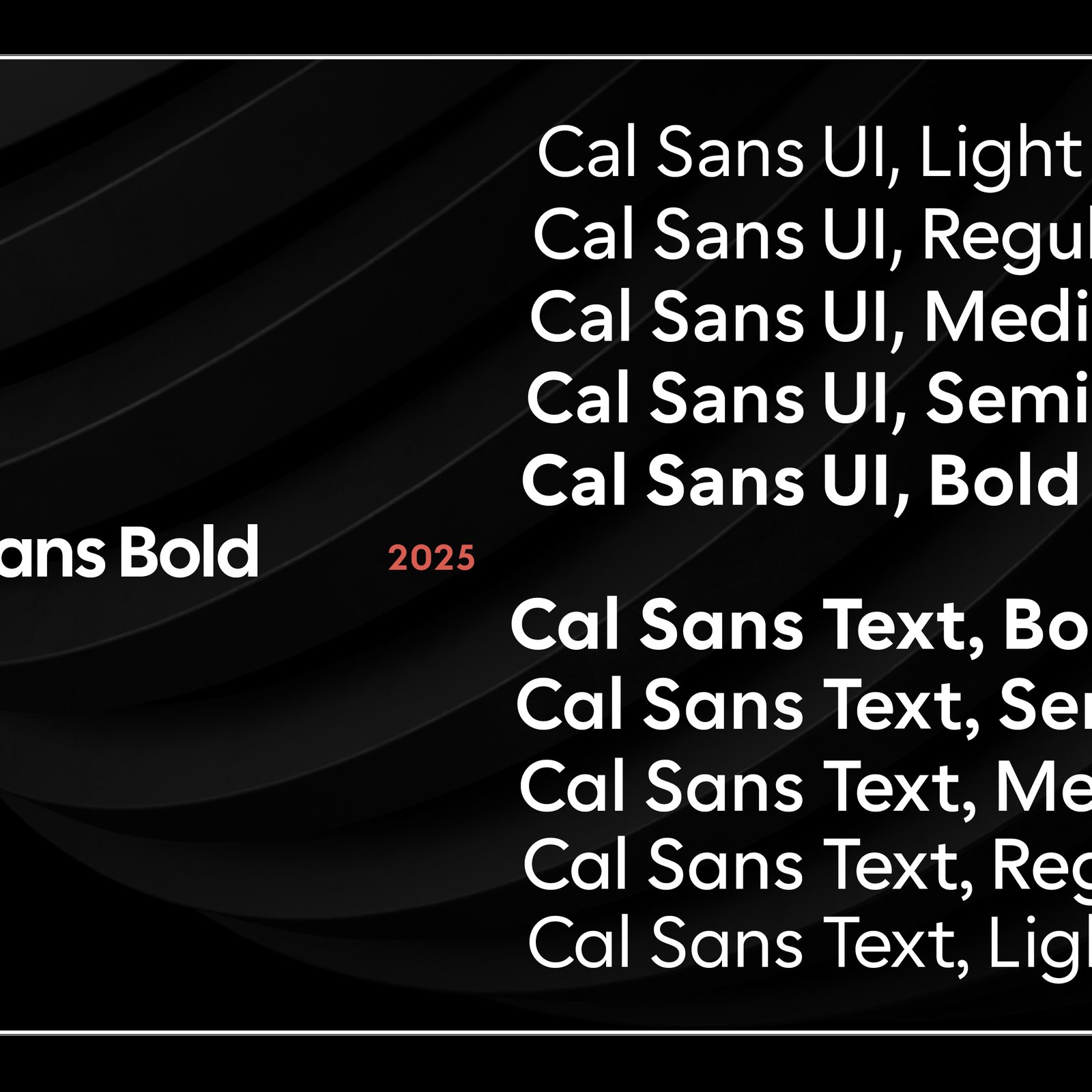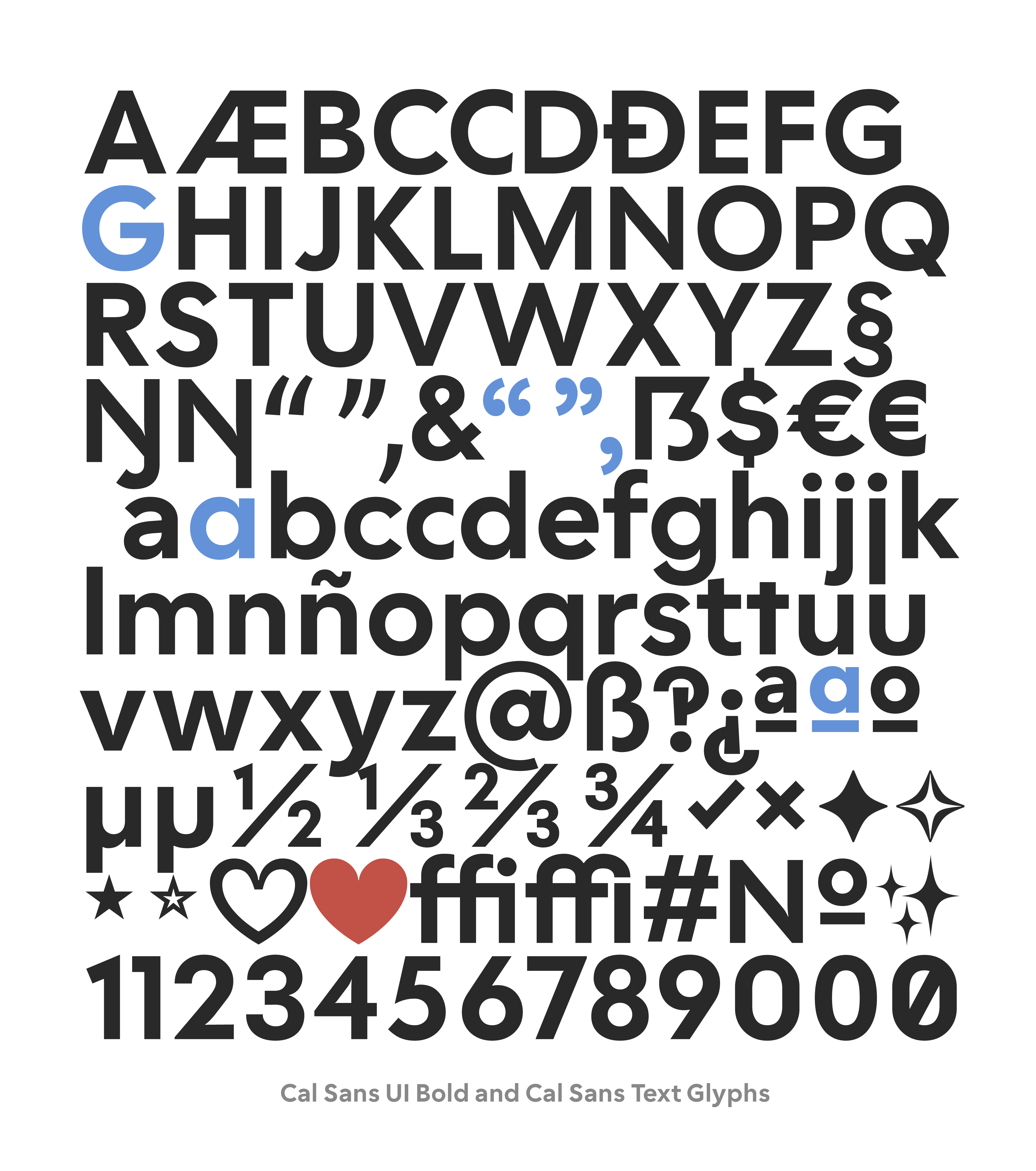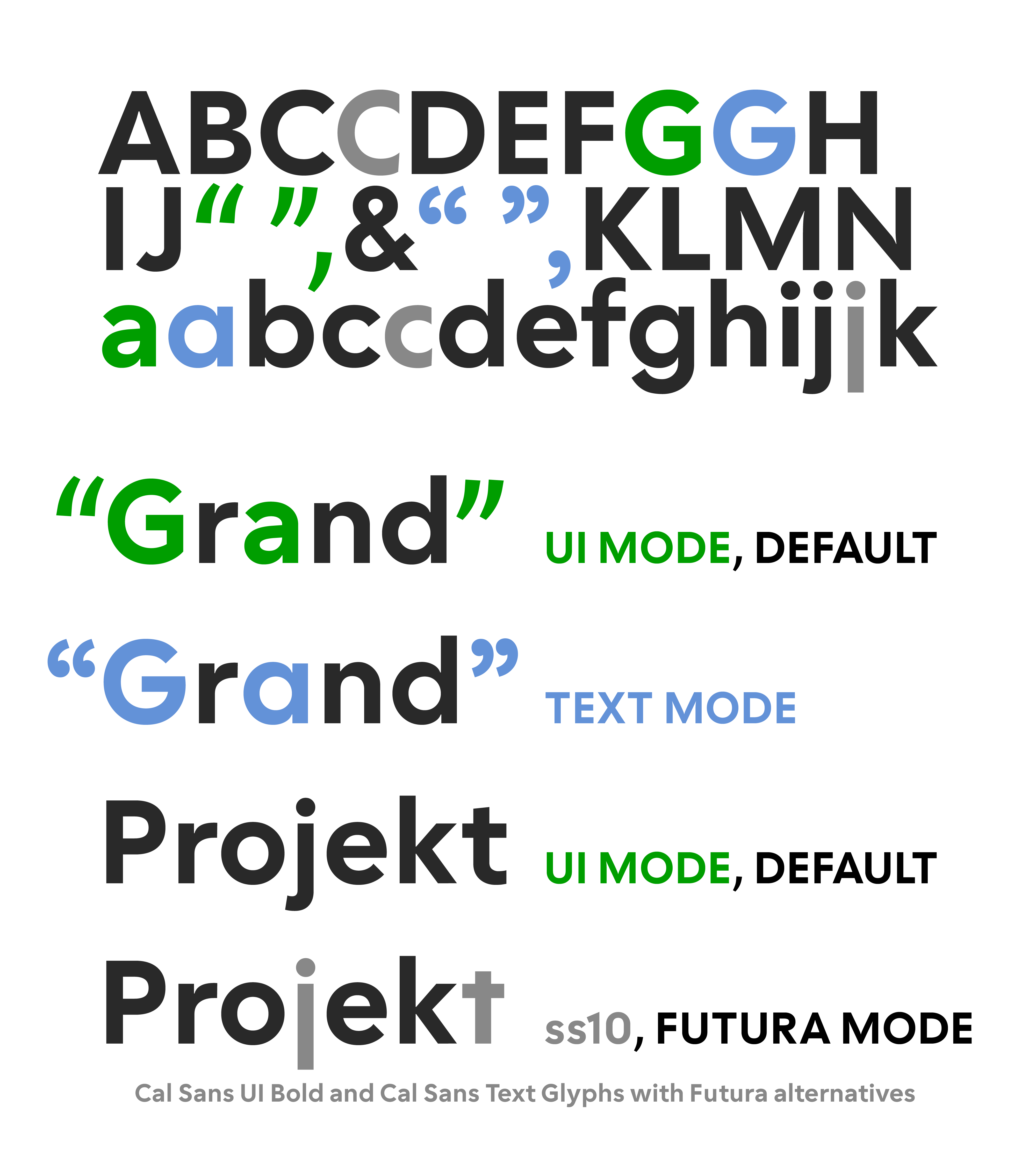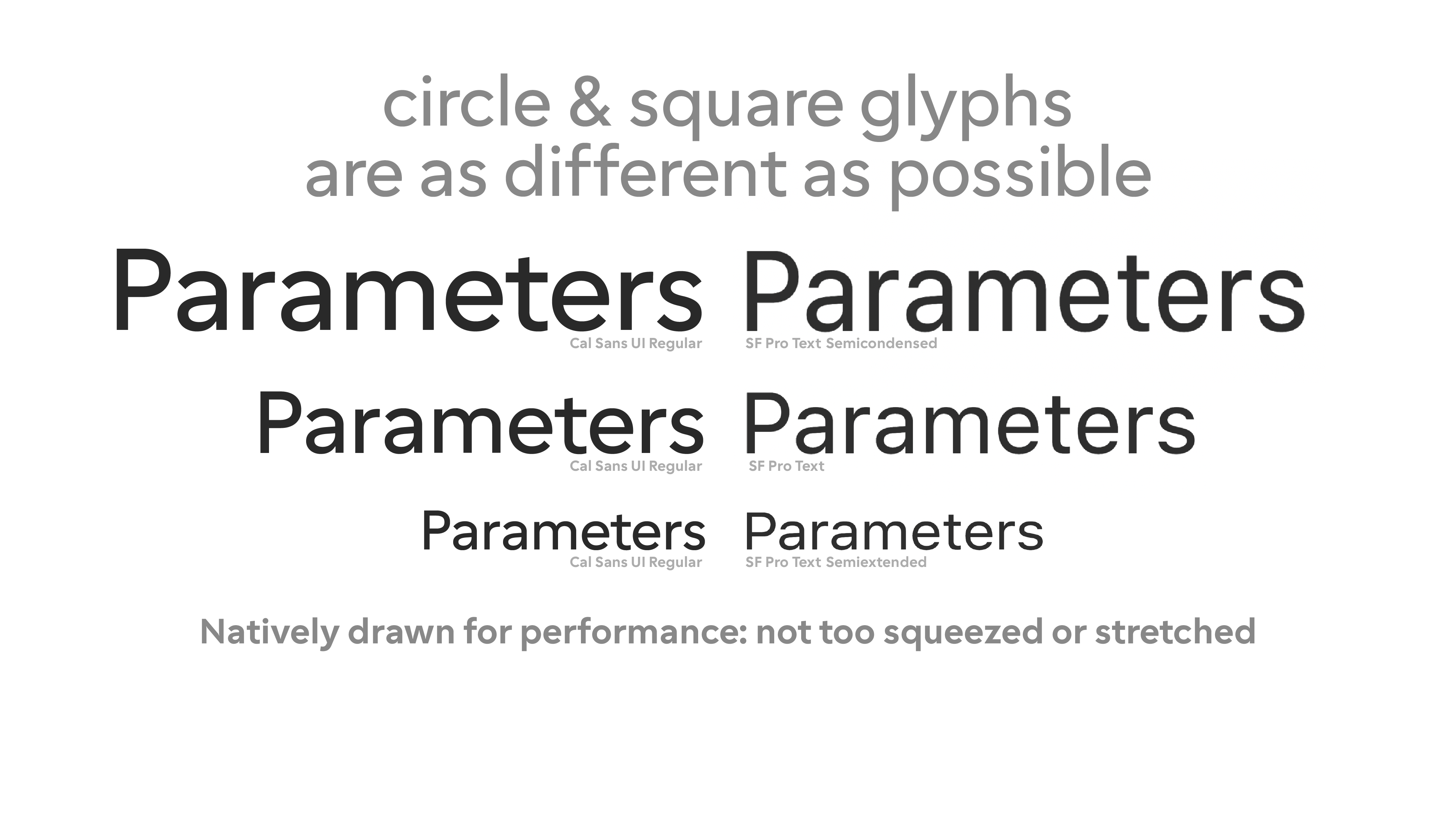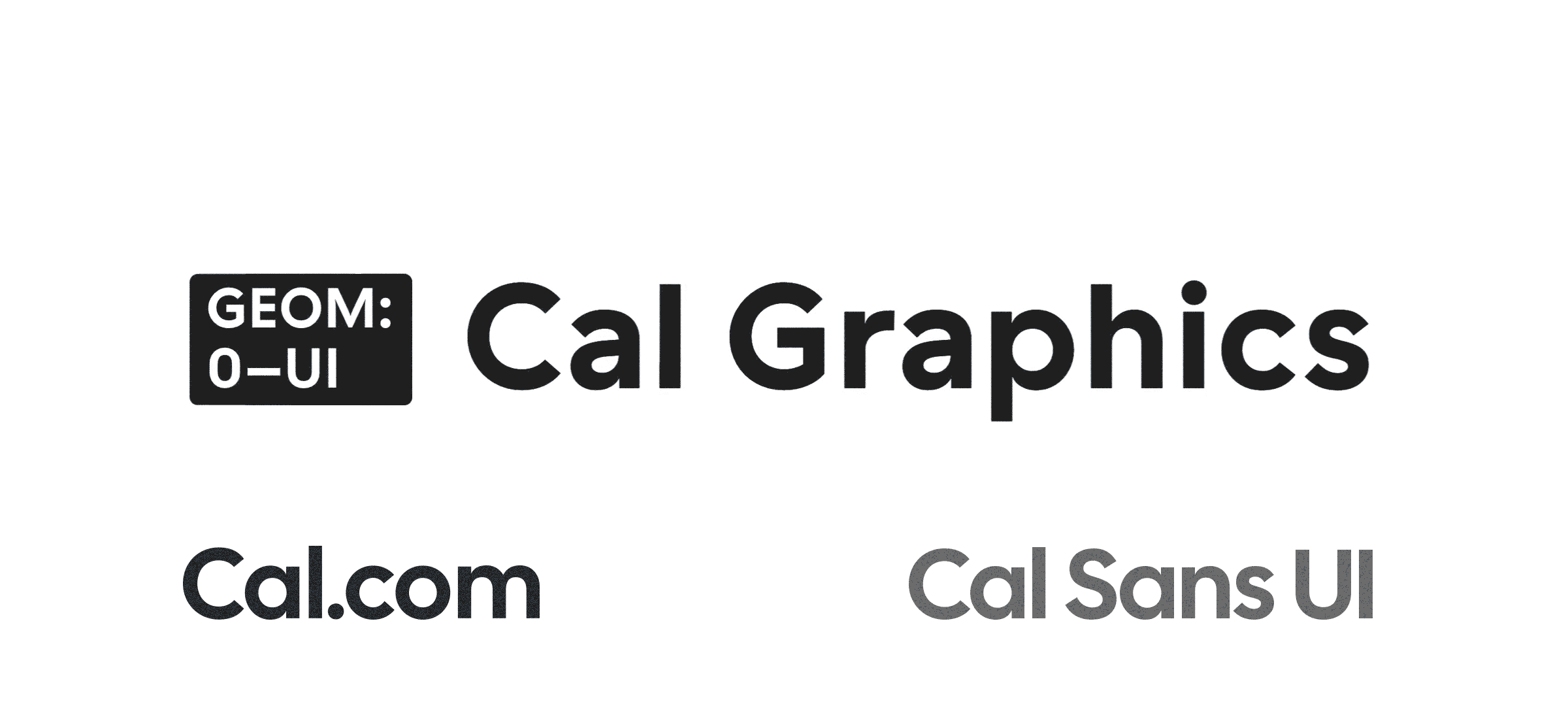
Cal Sans UI Free Font: A Variable Typeface with GEOM Axis
Cal Sans UI free font is a variable typeface by Mark Davis for Cal.com with a GEOM axis that slides between humanist and geometric forms, released under the SIL Open Font License for free personal and commercial use.
Cal.com, the open-source scheduling platform with more than 50,000 GitHub stars, commissioned the type family from WORDMARK, Davis's typographic practice. The result is not a generic UI face. Cal Sans UI ships as three distinct families: Cal Sans UI, Cal Sans UI Text, and Cal Sans UI Geo, each with a weight axis spanning Light to Bold and a custom GEOM axis running from 0 to 100. At GEOM 0, letterforms carry organic, humanist curves. At 100, those same letters resolve into strict geometric proportions. The font slides between both states continuously, giving designers a tool with genuine expressive range.
The family was built for interfaces, optimized for 14–15px rendering on high-density screens. Vertical metrics align with Inter, Geist, Roboto, and other system UI standards, so dropping Cal Sans UI free font into an existing codebase requires no layout adjustments. Five weights are supported across all three families, and the typeface handles more than 100 languages.